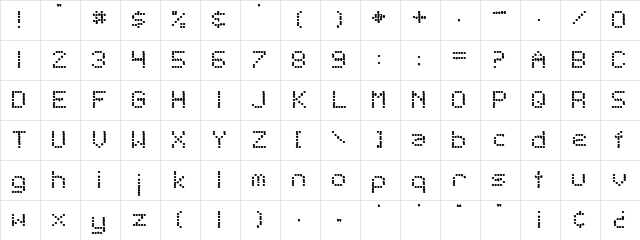
SF Telegraphic Regular
Regular · ShyFoundry Derek Vogelpohl ·
Design Context for SF Telegraphic Typeface
SF Telegraphic is a composed and adaptable typeface that performs quietly and consistently across a wide range of design contexts.